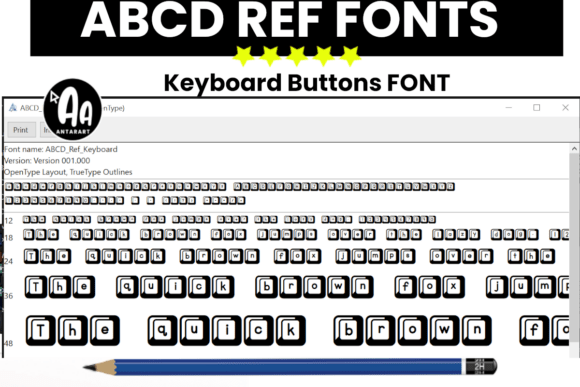
Introduction to Keyboard Buttons Font
Have you ever been working on a creative project, only to find the perfect font to bring your vision to life? For designers, finding that elusive font can be the difference between a decent design and an outstanding one. Recently, I stumbled upon the Keyboard Buttons Font, and I couldn’t wait to share it with you.
Designed to resemble real keyboard keys, this unique font adds a digital vibe to your worksheets, posters, and classroom displays. With its clean and modern design, the Keyboard Buttons Font is perfect for typing practice activities, computer literacy lessons, and tech-themed bulletin boards. Its transparent background makes it easy to layer over other design elements, allowing for endless creative possibilities.
Key Features of Keyboard Buttons Font
- High-quality design for creative projects, ideal for digital interfaces and user-friendly designs.
- Transparent background option for easy customization and layering in design applications.
- Resolution-independent design, suitable for use in various screen sizes and resolutions.
- Perfect design resource for UI/UX designers, developers, and digital artists looking for a clean and modern look.
- Available in multiple sizes, including small, medium, and large, to accommodate various design needs.
- Unique characteristics include subtle texture and rounded edges, adding a touch of realism and visual appeal.
Honest Review: Keyboard Buttons Font
I recently stumbled upon the Keyboard Buttons Font and I’m excited to share my thoughts on this design resource. The font is a unique and creative project that’s perfect for anyone looking to add a touch of retro flair to their design.
One of the standout features of this font is its high-quality design. The buttons are intricately detailed and have a realistic texture that makes them look like they’re straight from an old keyboard. The transparent background option is also a great feature, allowing designers to easily integrate the font into their design without any distractions.
Here are some of the things that work well with the Keyboard Buttons Font:
- ✨ Unique and creative design that adds a touch of personality to any project
- ✨ High-quality design with intricate details and realistic texture
- ✨ Transparent background option for easy integration into designs
- ⚠️ Limited customization options, which may not be ideal for designers who want to make significant changes to the font
- ⚠️ Not suitable for all types of designs, particularly those that require a more modern or minimalist look
Overall, I’m impressed with the Keyboard Buttons Font and would recommend it to designers looking for a unique and creative design resource. While it may have some limitations, the high-quality design and transparent background option make it a valuable addition to any design project.
Keyboard Buttons Font
The Keyboard Buttons Font is a unique design resource ideal for creating interactive and engaging visual elements in various creative projects. With a transparent background, this font is perfect for overlaying on images or videos to add a professional touch.
Adobe Photoshop/Illustrator: Import the font into your Adobe projects and use it to create custom keyboard buttons, icons, and other visual elements.
Tips for Getting the Most Out of Keyboard Buttons Font
To get the most out of the Keyboard Buttons Font, try the following:
Experiment with different colors and backgrounds to create a unique look.
Use the font in combination with other design elements, such as images and icons, to create a visually appealing design.